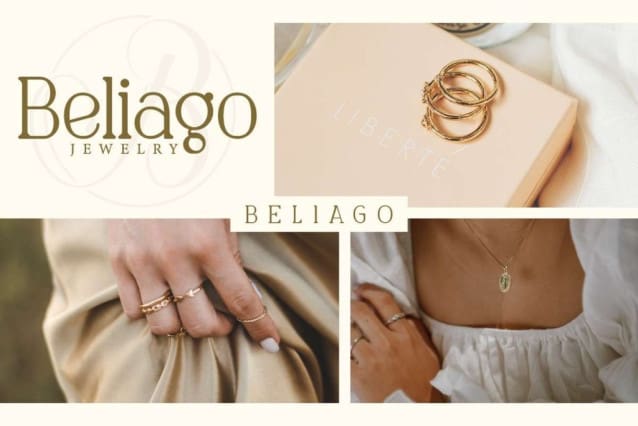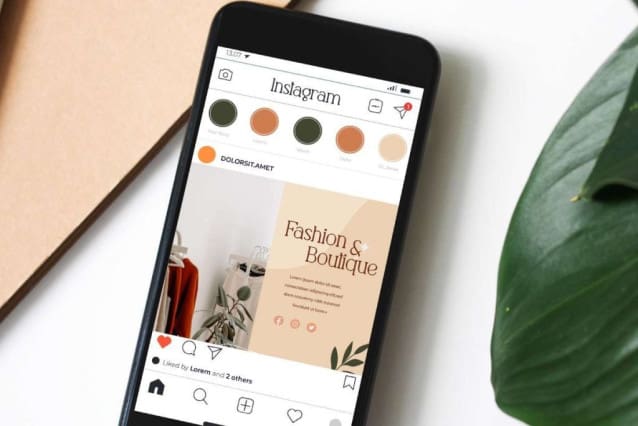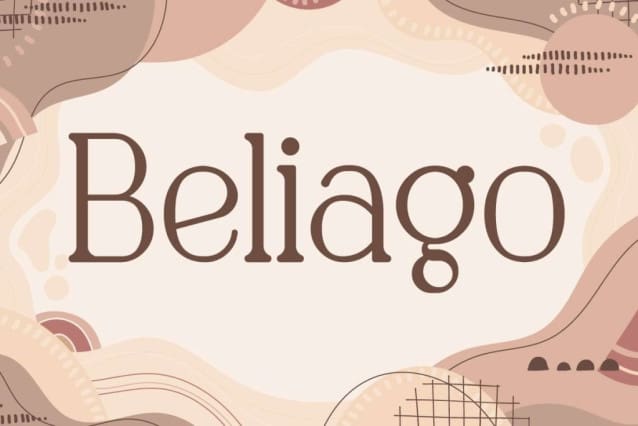
Beliago Font
Beliago Font is a retro inspired classic serif display font with modern look and artistic touch. Attractiveness from a visual perspective will increase your business, such as architect, beauty clinic, boutique, café, construction, cosmetic, event organizer, fashion, florist, furniture, handicraft, interior design, jewelry, photography, printing, publishing, real estate, restaurant, skincare, spa salon, wedding, writer, etc.
Beliago Font includes full set of Uppercase and Lowercase Basic Characters, Number, Punctuation, and Symbol. It will create an elegant and classy look to your design, such as apps, billboard, blog, body text, brand logo, brochure, cover, flyer, header, invitation, label, mockup design, product packaging, poster, quote, screen print, signage, stationery, sticker, title, watermark, website, and many more.